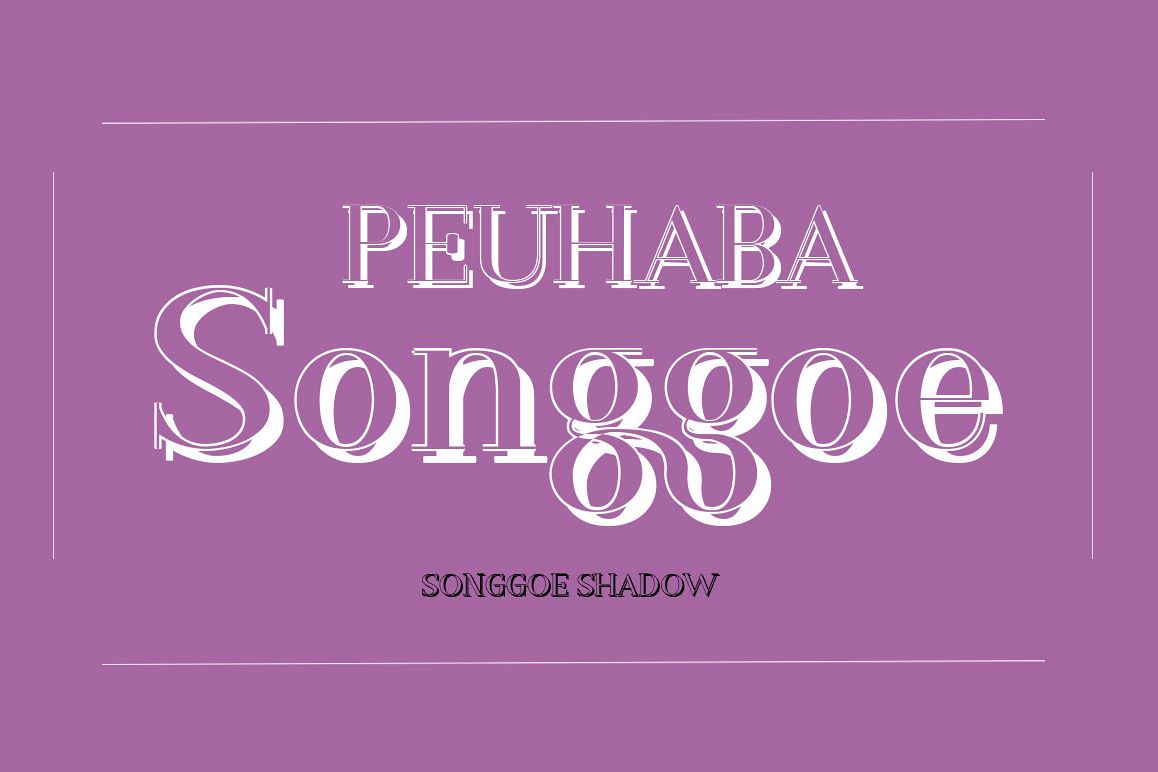
Songgoe Shadow
Introducing PEUHABA Songgoe!
PEUHABA Songgoe is a new modern font.Songgoe is perfect for stationery, logos, t-shirts, paper, print designs, website headers, photo frames, leaflets, music covers, posters, image sliders and more.